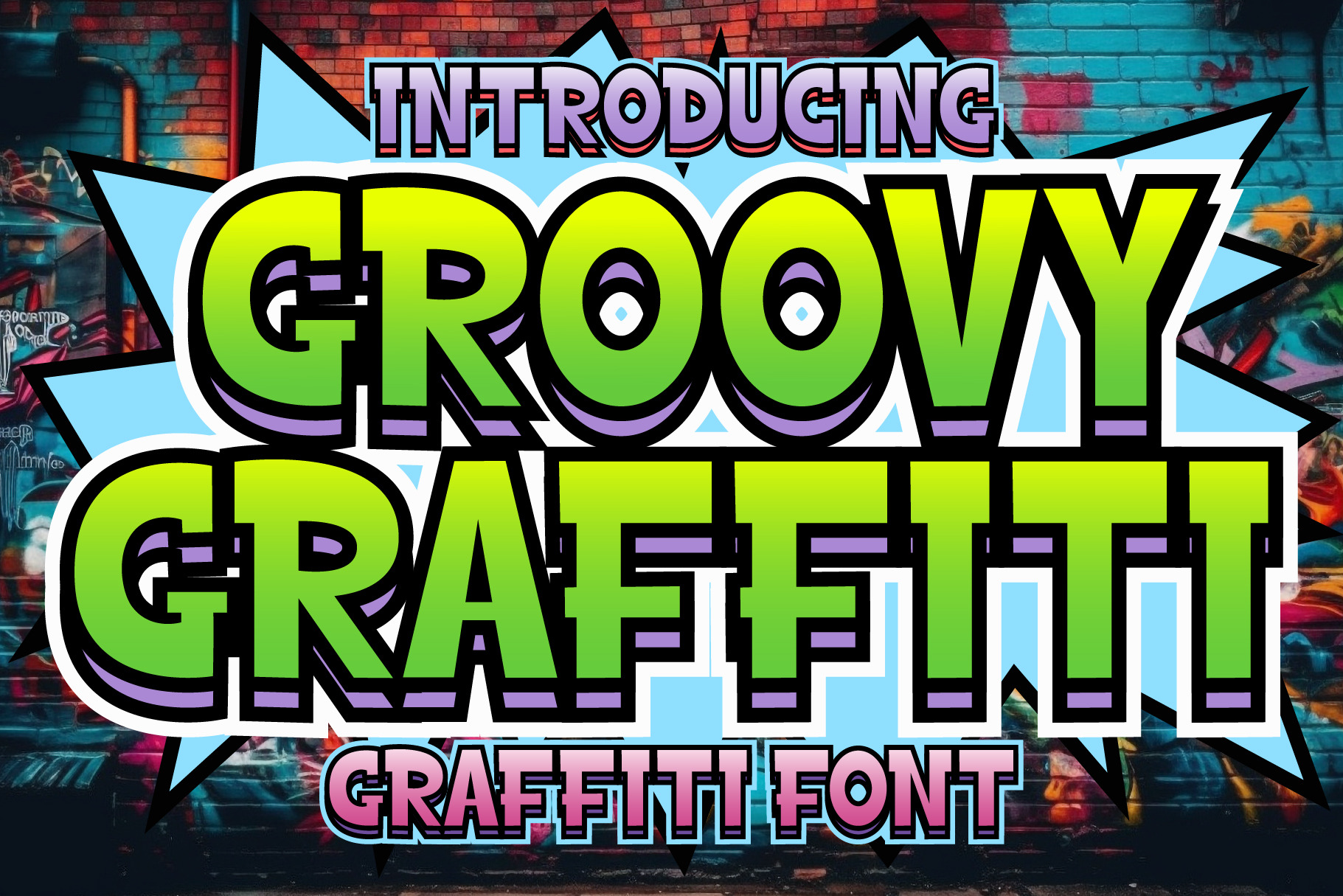
Groovy Graffiti - Graffiti Font
Street Lord is a bold and thick lettered display font, inspired by the graffiti art. It will look stunning on any poster flyer or print. Use this font for your designs and explore its endless possibilities.